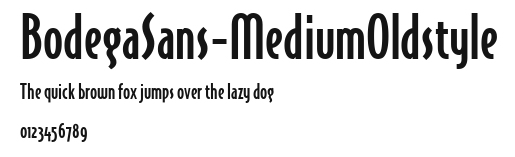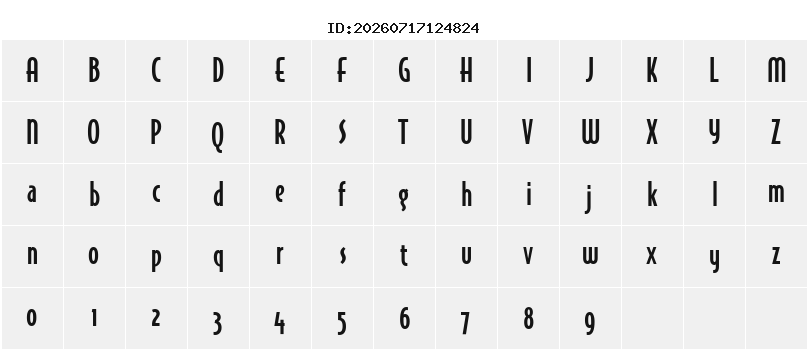
• Font Name: BodegaSans-MediumOldstyle
• Full Font Name: BodegaSans-MediumOldstyle
• PostScript Name: BodegaSans-MediumOldstyle
• Character Count: 221
• Manufacturer: Copr. Greg Thompson and The Font Bureau, Inc
About BodegaSans-MediumOldstyle.ttf
BodegaSans-MediumOldstyle.ttf is a modern, elegant sans-serif font designed for ultimate readability and visual harmony. Perfect for branding, headlines, web design, and print materials.